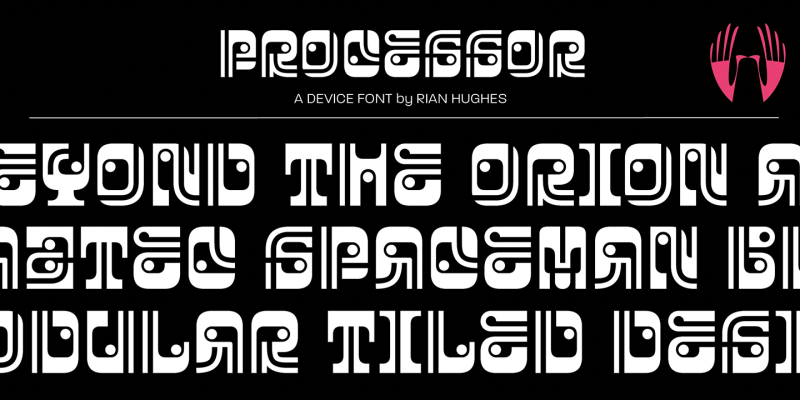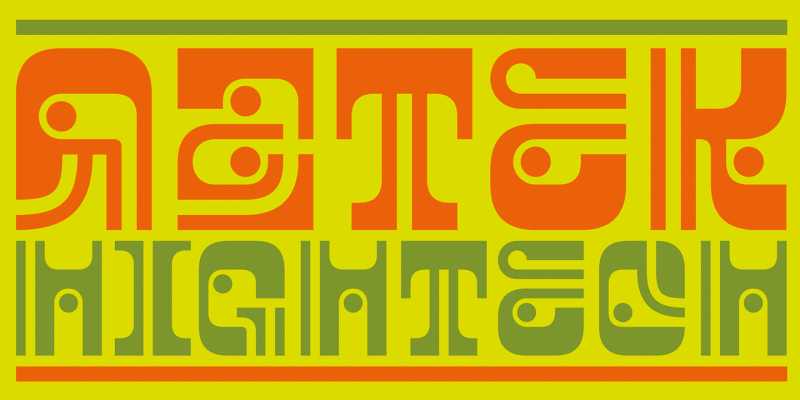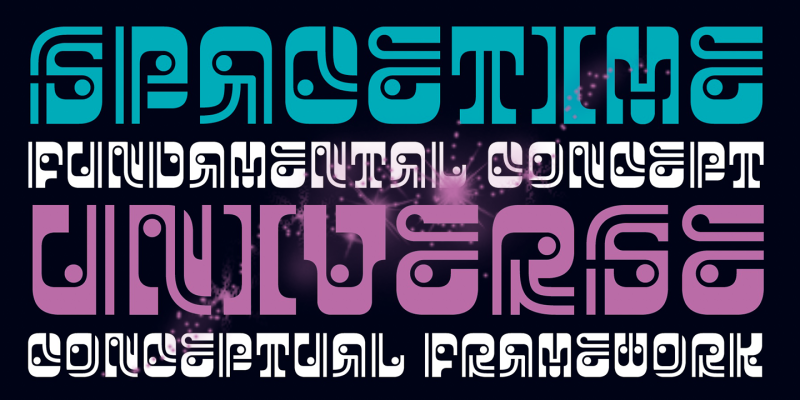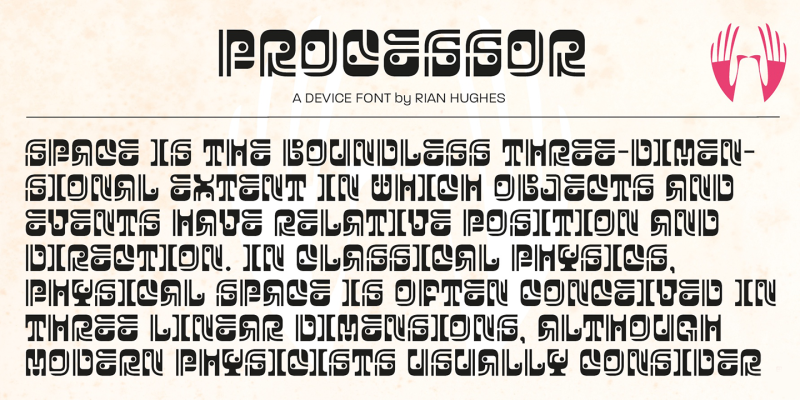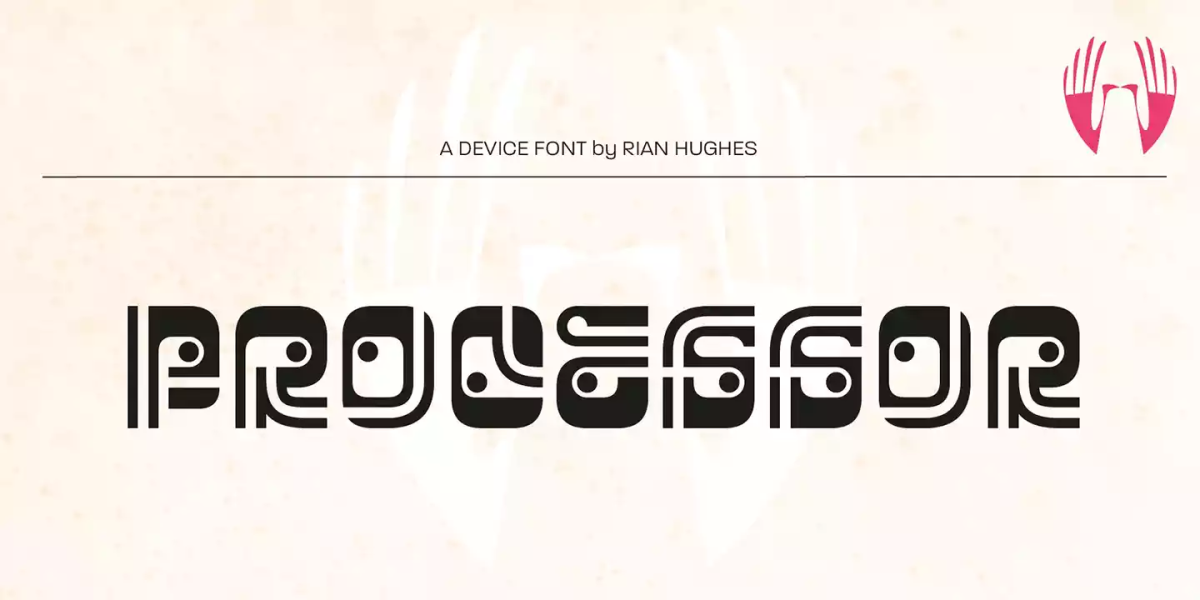
Processor Font
An unusual modular geometric font that lies somewhere between Aztec and Futurism. An attention grabber that is best used big.
Where Processor Font works best
Processor Font is built for size: event posters, hero headlines and billboard-style layouts.
High contrast display type like Processor Font reads instantly in thumbnails and motion graphics.
What is Processor Font good for?